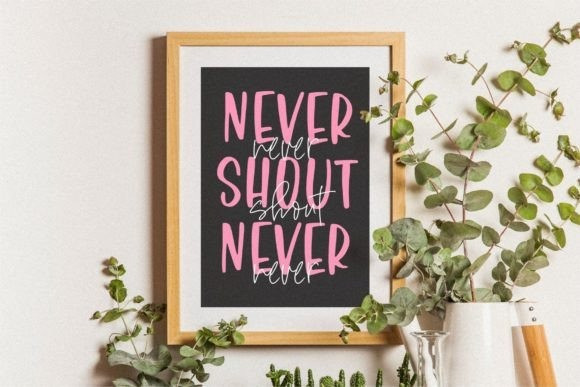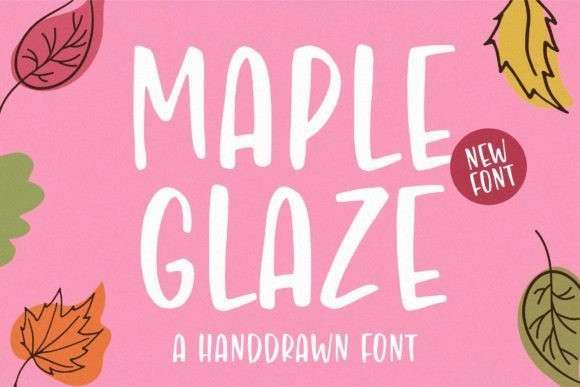
Maple Glaze Font
Maple Glaze Font is a cute and friendly handwritten script. Whether you’re using it for crafts, digital design, presentations, or making greeting cards, this font has the potential to become your favorite go-to font, no matter the occasion!